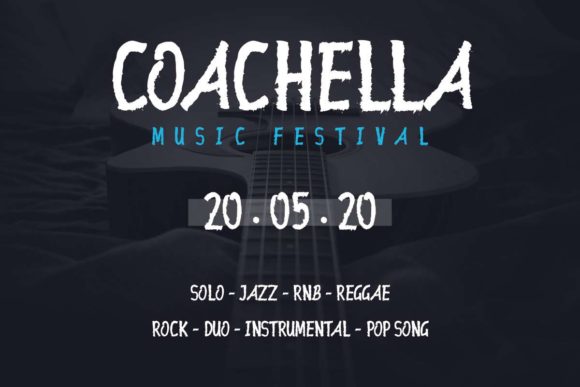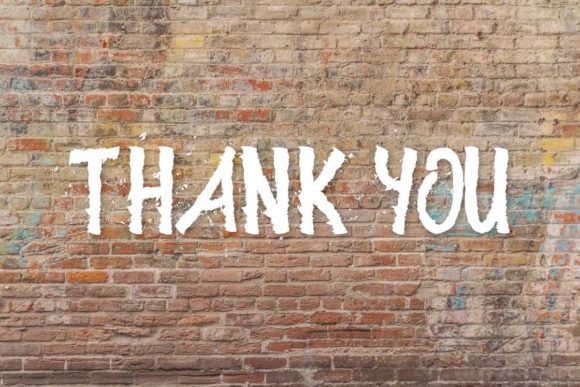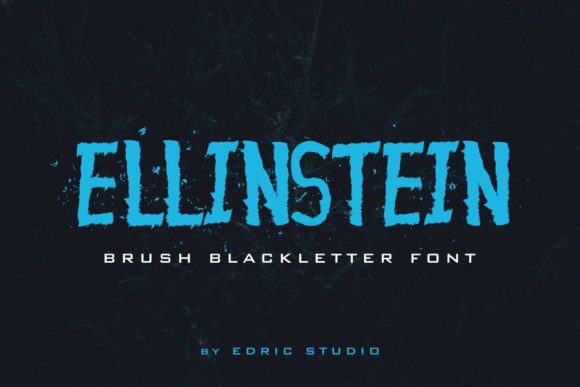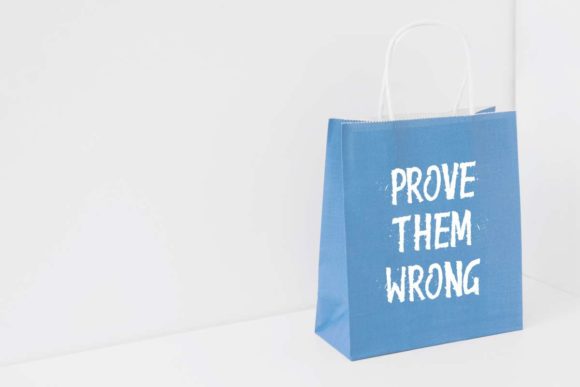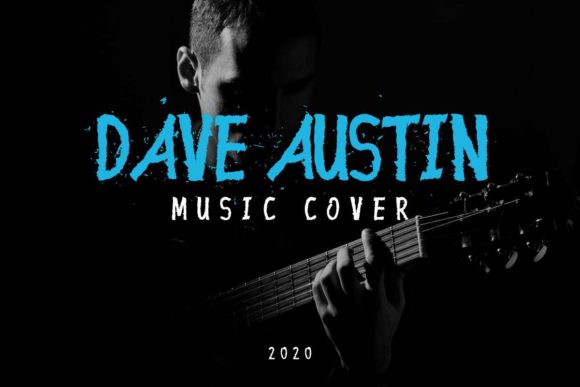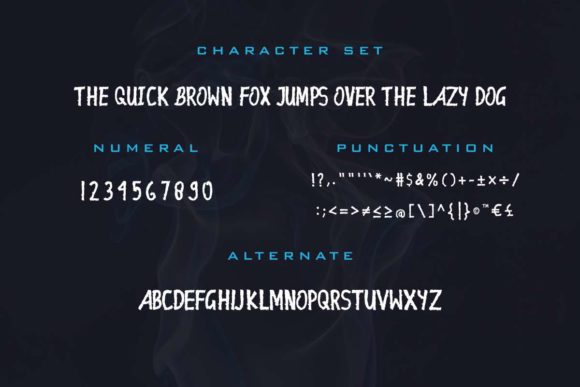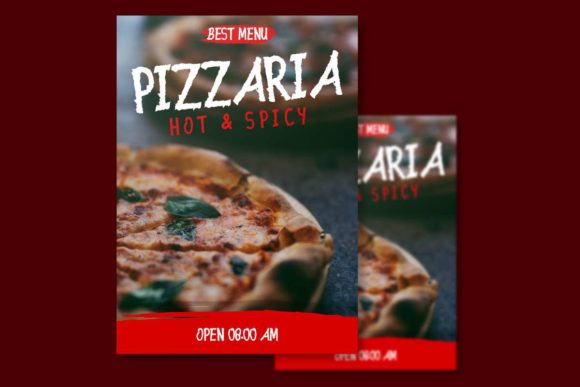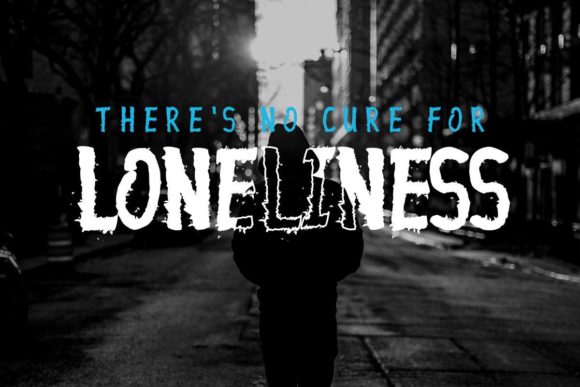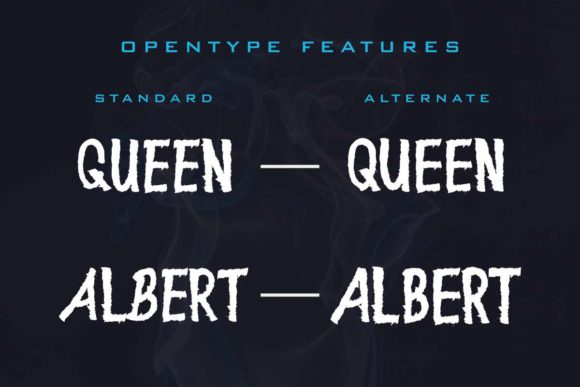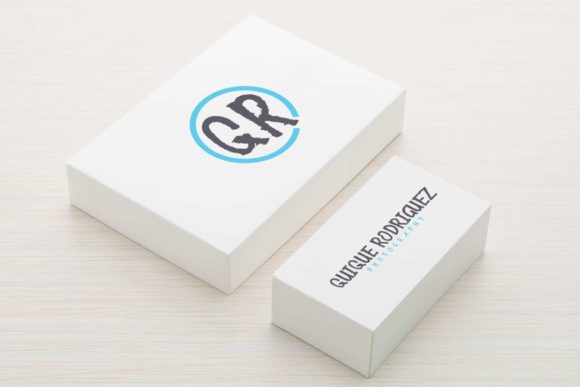
Ellinstein Font
About Ellinstein Font
Ellinstein is a casual and bold handwritten font, created by using a brush pen. Unique and a little bit quirky, this font is the perfect fit for all of your logos, branding, social media, and crafty DIY projects.